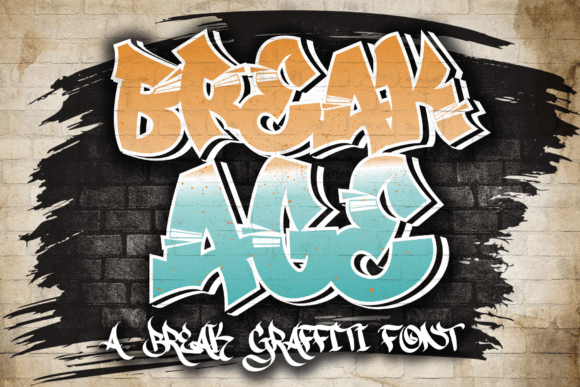
Unleash Your Creativity with Break Age Font: The Ultimate Graffiti Display Font
Are you a designer or crafter looking for a unique and eye-catching font to elevate your projects? Look no further than Break Age Font, an awesome display font that combines a graffiti style with break characters and bandages to add an edgy touch to your designs. In this article, we’ll dive into the features and benefits of Break Age Font, and explore how it can take your designs to the next level.
What is Break Age Font?
Break Age Font is a display font designed to make a statement. Its graffiti style and break characters with bandages give it a distinctive look that’s perfect for designs that need a bit of attitude. Whether you’re working on branding, headings, wedding designs, invitations, signatures, logotypes, wall art illustrations, apparel, labels, or more, Break Age Font is the perfect choice.
Key Features of Break Age Font
- Graffiti Style: Break Age Font features a bold and edgy graffiti style that’s sure to grab attention.
- Break Characters: The font includes break characters with bandages, adding a unique touch to your designs.
- Versatility: Break Age Font can be used for a wide range of design projects, from branding and headings to wedding designs and wall art illustrations.
Benefits of Using Break Age Font
So why choose Break Age Font for your design projects? Here are just a few benefits:
- Adds Edge to Your Designs: Break Age Font’s graffiti style and break characters with bandages add an edgy touch to your designs, making them stand out from the crowd.
- Increases Versatility: With Break Age Font, you can create a wide range of designs, from bold and playful to edgy and sophisticated.
- Enhances Creativity: The font’s unique style and features inspire creativity and experimentation, helping you to push the boundaries of your designs.
Design Ideas with Break Age Font
Break Age Font is a versatile font that can be used for a wide range of design projects. Here are some ideas to get you started:
- Branding: Use Break Age Font to create bold and eye-catching logos and branding materials.
- Wedding Designs: Add a touch of edginess to your wedding designs, such as invitations, programs, and decorations.
- Wall Art Illustrations: Create stunning wall art illustrations using Break Age Font and bold graphics.
- Apparel: Design eye-catching apparel, such as t-shirts, hoodies, and hats, using Break Age Font.
Break Age Font is an awesome display font that can elevate your designs to the next level. With its graffiti style, break characters with bandages, and versatility, it’s perfect for designers and crafters who want to add an edgy touch to their work. Whether you’re working on branding, headings, wedding designs, or more, Break Age Font is the perfect choice. So why wait? Download Break Age Font today and unleash your creativity!